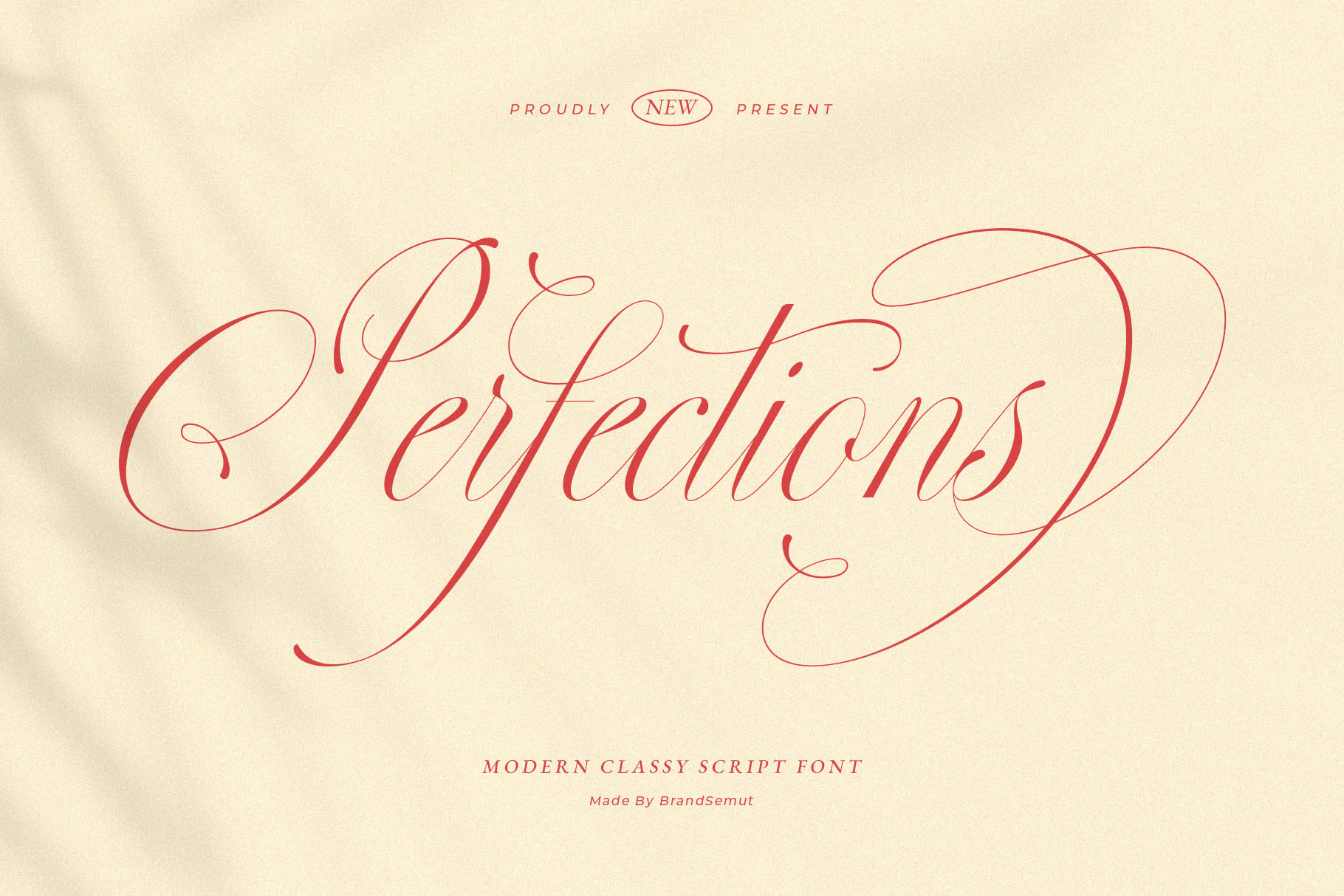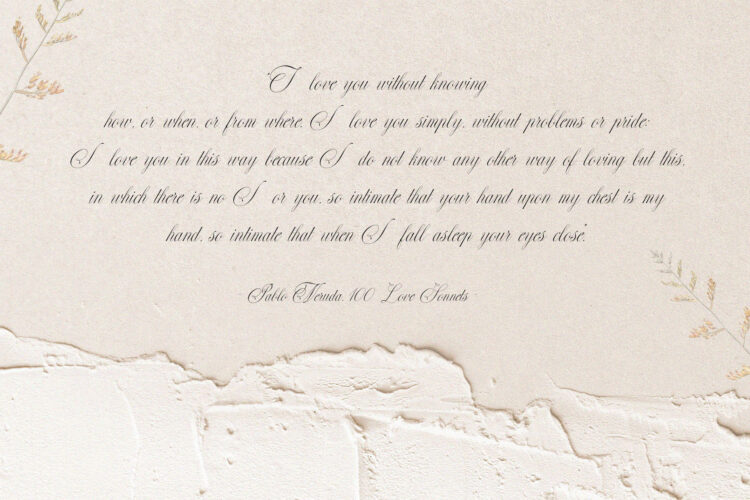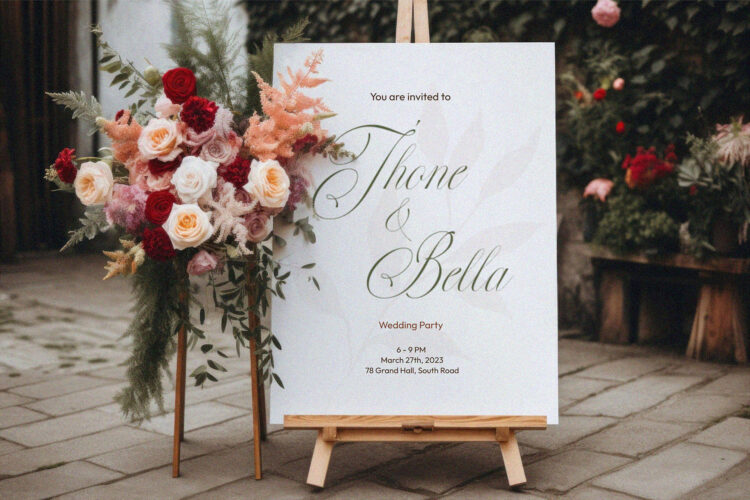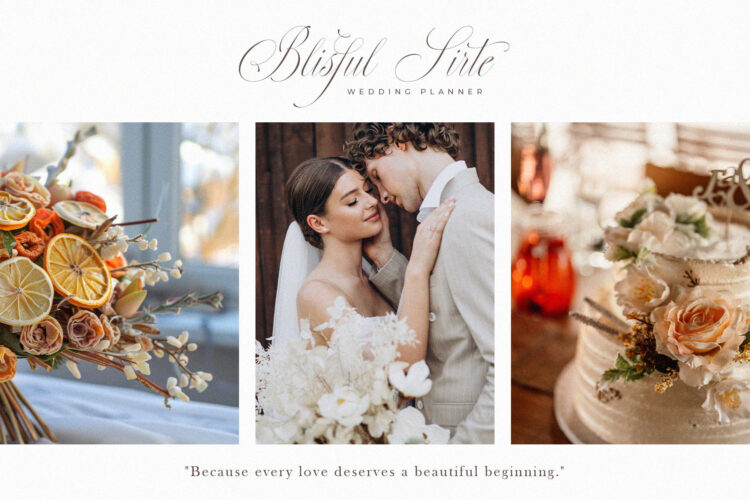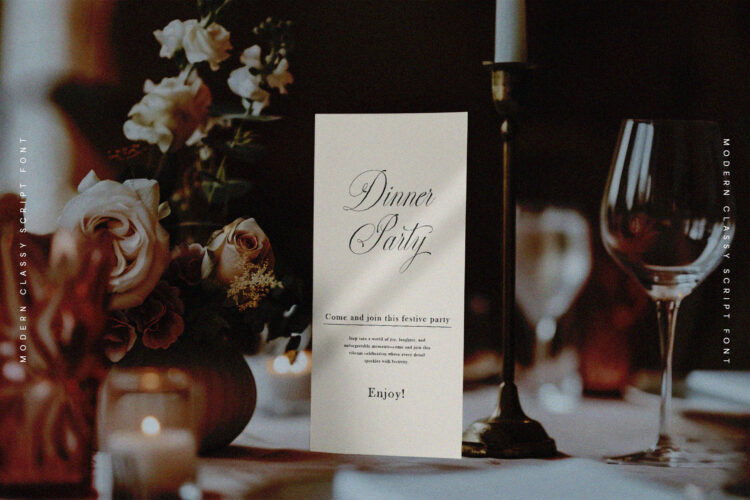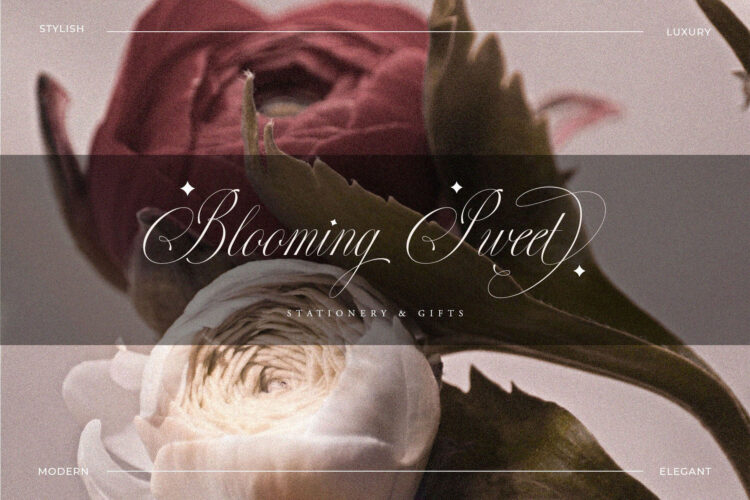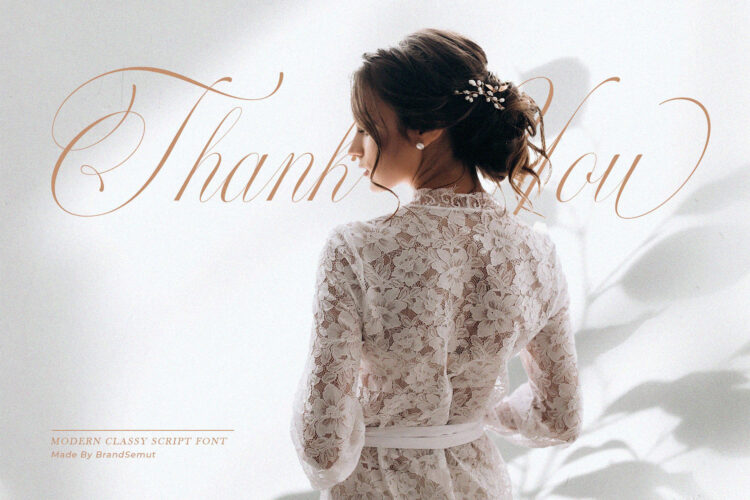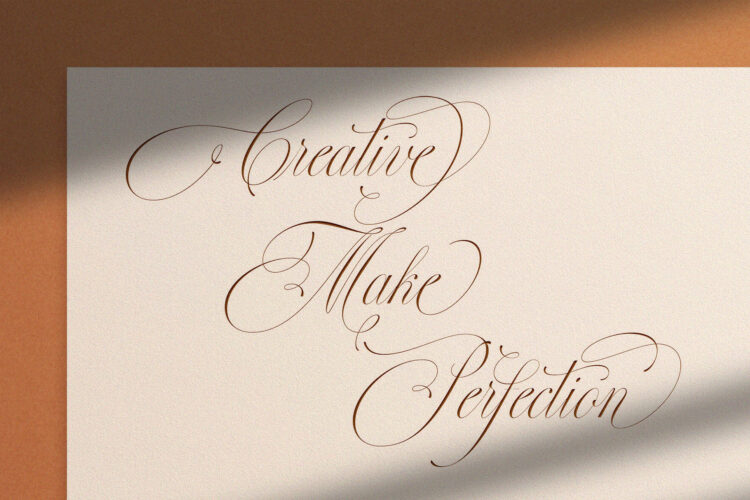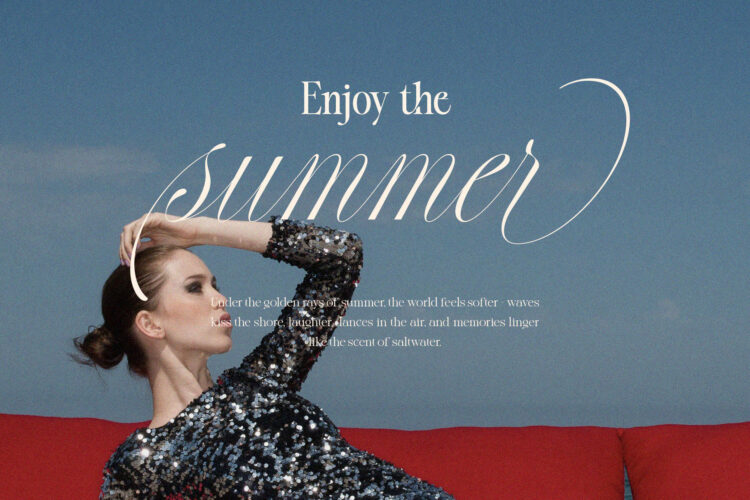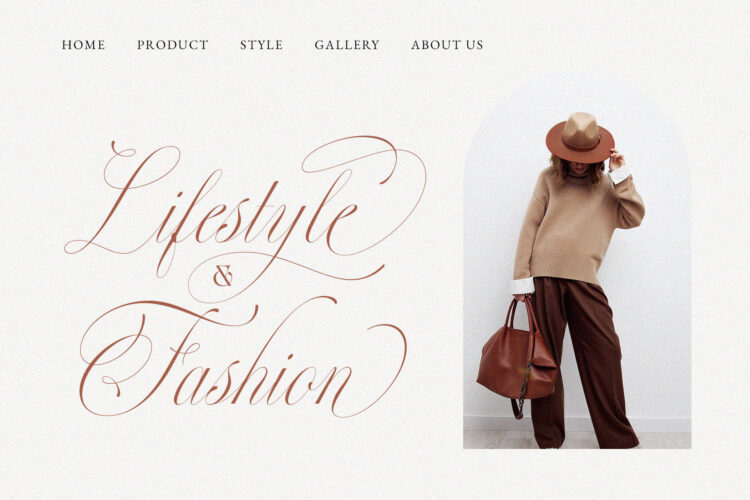
Perfections is a modern classy script font designed to bring luxury, beauty, and elegance into every design project. With smooth curves, graceful swashes, and delicate calligraphy details, this font is the perfect choice for designers who want to create high-end, stylish, and timeless visuals.
Combining the sophistication of classic calligraphy with a modern touch, Perfections offers a versatile style that works beautifully across print and digital designs. Each letter is crafted with precision, balancing artistic charm and readability, making it ideal for both professional branding and personal creative projects.
✨ Perfect for Multiple Design Needs:
– Branding & Logo Design – Elevate your brand identity with a luxurious and professional look, ideal for fashion labels, beauty products, jewelry, and premium businesses.
– Wedding & Invitations – With its romantic and graceful style, Perfections is the perfect script for wedding invitations, greeting cards, event stationery, and elegant signage.
– Editorial & Packaging – Add a sophisticated touch to magazines, book covers, and packaging for cosmetics, perfumes, gourmet products, or any premium item.
– Creative Projects – Great for social media posts, inspirational quotes, posters, monograms, and any design that calls for a classy handwritten style.
🎯 Why Choose Perfections?
– Modern & Elegant Look – A stylish script font that combines timeless calligraphy with a fresh modern feel.
– Luxurious Appeal – Perfect for high-end brands that want to convey exclusivity and elegance.
– Versatile Usage – Suitable for branding, weddings, editorial layouts, and packaging.
– Professional Quality – Each character is designed with care to ensure beauty and readability in every project.
If you are looking for a script font that embodies elegance, romance, and sophistication, Perfections is the ultimate choice. Bring a touch of class to your next project and create stunning, memorable designs that leave a lasting impression.
With Perfections, every project becomes more refined, luxurious, and truly unforgettable.
Perfections – Classy Romantic Script